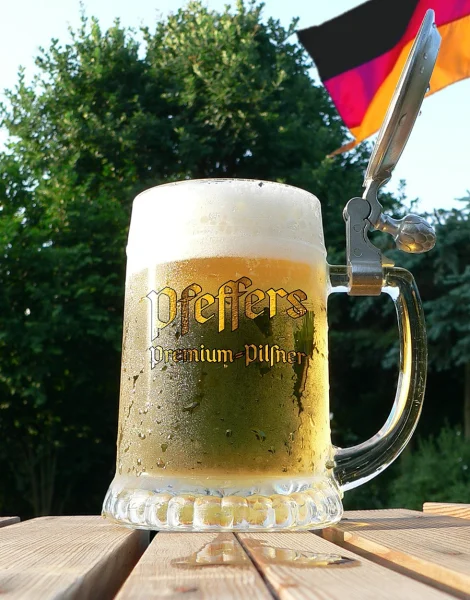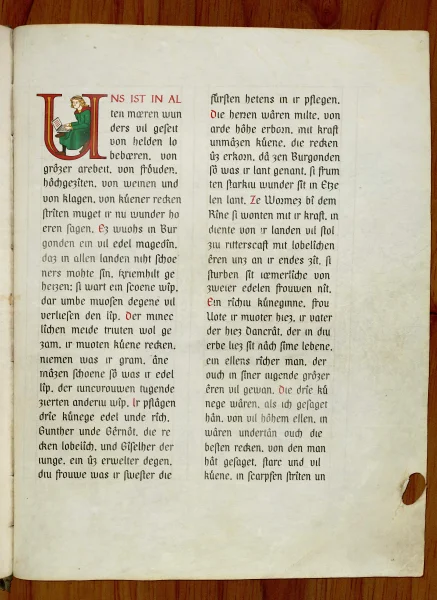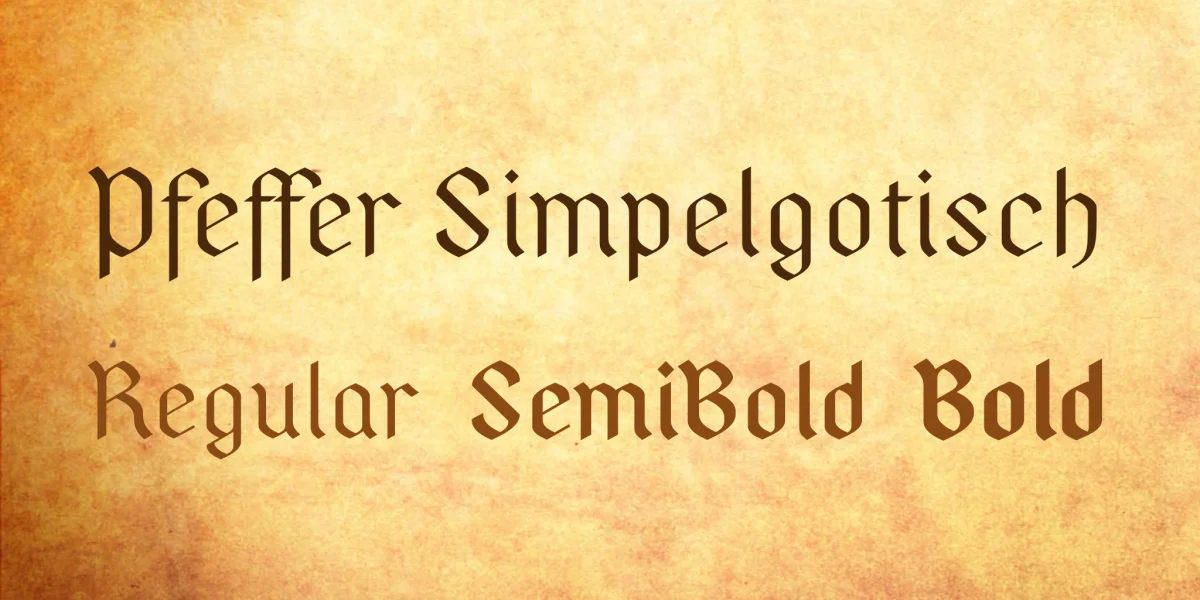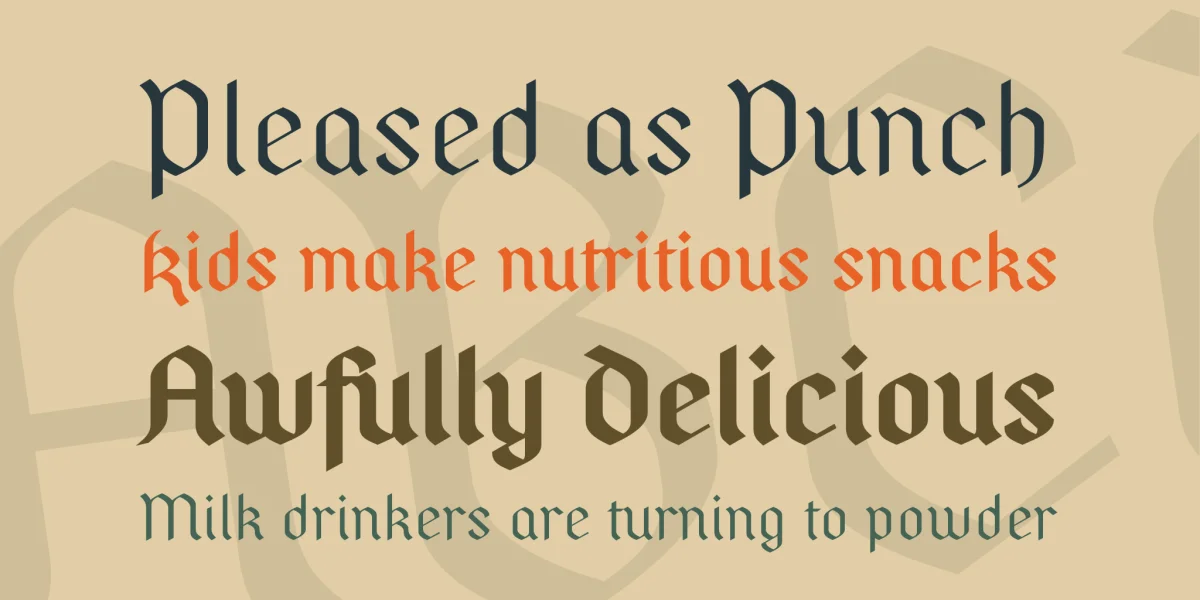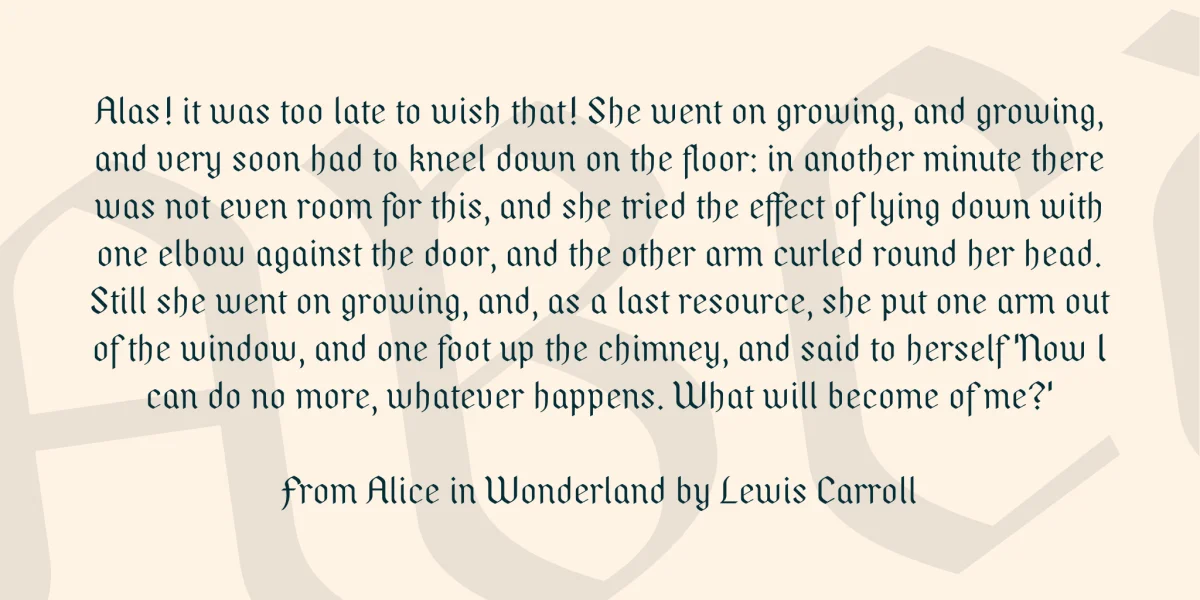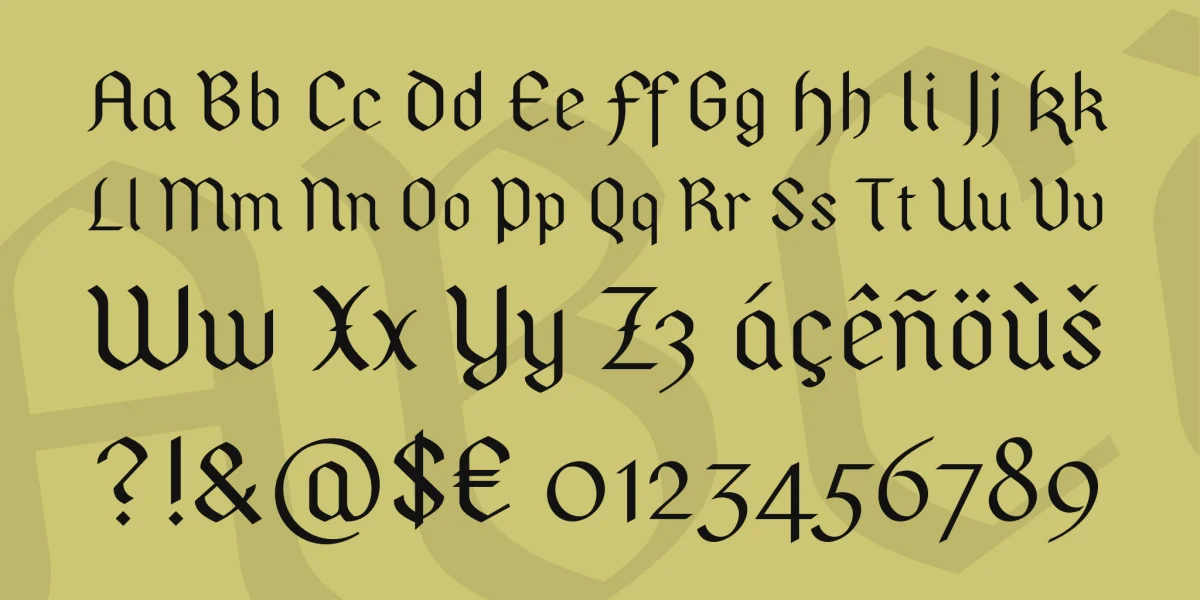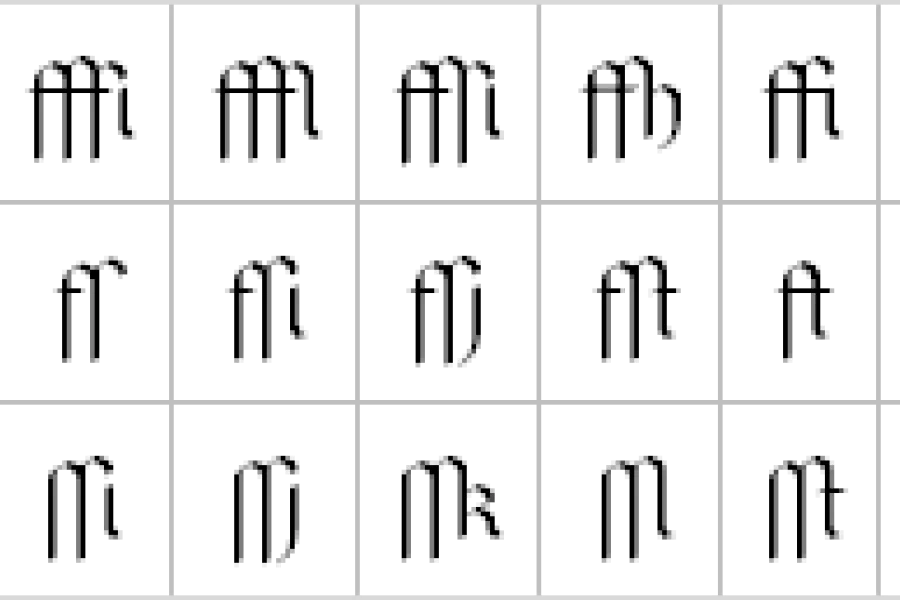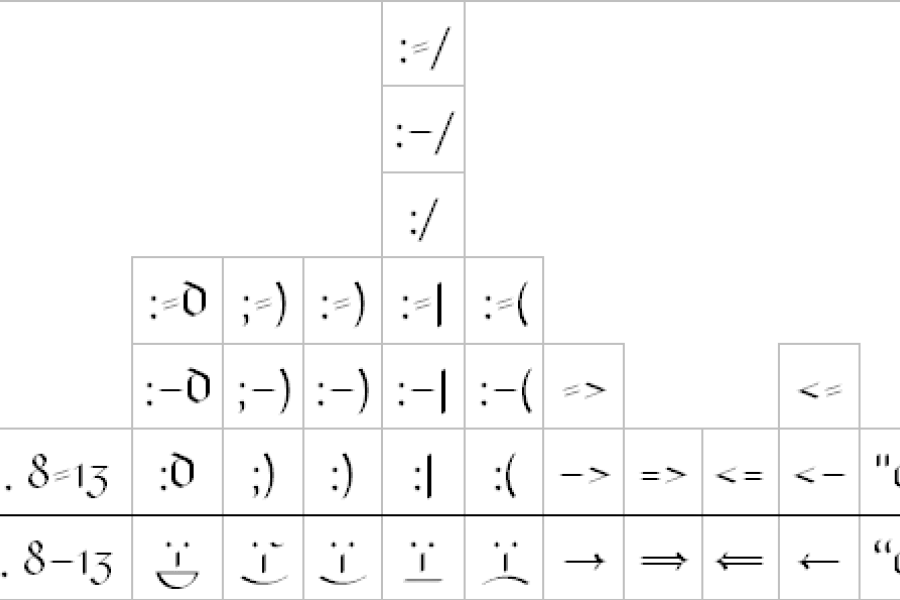
[smallcaps]Pfeffer Simpelgotisch[/smallcaps] is a particularly simple variant of the textura—that blackletter scripture which, starting from the 11th century with the advent of the Gothic style, had evolved from the Carolingian minuscule via the Gothic minuscule. The prevalent typeface of an age roughly reflects the era’s architecture: The Carolingian minuscule’s roundings correlate to the Romanesque round arches, while the textura’s letters are as peaked and as upright as Gothic architecture. Sans-serif on the contrary breathes the spirit of our concrete age, and antiqua is apparently to stand for anything in between, from Renaissance to Classicism. Following this finding, the pointed arch is the essential stylistic feature of Pfeffer Simpelgotisch, which for the rest is quite unornamental.
Blackletter typefaces know two forms of “s”— the round one (“s”) and the long one (“ſ ”)—the use of which abides by certain rules. Moreover, they use ligatures, including some mandatory ones. Pfeffer Simpelgotisch’s very special feature now is its having ſ and s as well as the ligatures automatically set, provided that the employed software support OpenType features. This, as well as its high legibility in small type sizes, renders Pfeffer Simpelgotisch even suitable for use as a system font in browser or operating system—at least on fast computers *.
Character Set and Typefaces
Pfeffer Simpelgotisch contains more than 500 glyphs the whole of which can’t be displayed here. These include many accented glyphs and other special characters. As far as the coverage reaches, the character mapping follows the recommendations of the Medieval Unicode Font Initiative. Particularly noteworthy are the numerous ligatures that are all set automatically.
Up to now Pfeffer Simpelgotisch is available in three typefaces: regular, semi-bold and bold. As Microsoft Word doesn’t recognise semi-bold typefaces so far, I also included the semi-bold one as a separate file in which it is declared as a separate font family.
OpenType Features
Pfeffer Simpelgotisch makes extensive use of OpenType features. The features “clig” and “liga” ought to be activated by default in order to have ſ and s as well as the ligatures automatically set. In detail:
I’ve used the feature “clig” (contextual ligatures) to store the rules for the correct setting of ſ and s. Ten European languages are supported. The language properties assigned to a text (e. g. in a Word or html document) determine which body of rules be applied. According to German rules, s is set at each syllable’s end, subject to some exceptions. In any other case ſ is set. While this rule sounds simple, it’s quite complicated to teach a machine, what a syllable is! Very few abstract and universal policies were to be found, and so the German rule body couldn’t be prevented from dwindling into casuistry. Hence, about 90 % of the “clig” feature are occupied by the German rules, while the other languages get along with the remaining 10 %. I’ve to thank [smallcaps]Hans-Georg Soldat †[/smallcaps], the author of the Ligaturix, who kindly had given to me a long list of tricky words. Alas, he has just died a few months too early to hear from my finished font.
The Dutch rules are experimental. Setting ſ and s in Dutch is as complicated as it is in German, and I lack the linguistic knowledge necessary to implement this. Thus I’ve employed the most abstract and basic German rules for Dutch as well, hoping they’ll be of some use there, too. Implementing the rules for English, Danish, Norwegian, Swedish, French, Spanish, Italian and Latin was much easier, as they only follow graphical aspects. The setting of ſ and s strictly depends on certain letter combinations, regardless of their meaning. Decisive for me was the description on Wikipedia.
One function of the feature “liga” (standard ligatures) is setting the ligatures. However, these serve merely aesthetic purposes by optically easing consonant clusters or by depicting glyph pairs more relaxed which otherwise would be quite crowded. Divergingly from the rules of Fraktur typography, these ligatures don’t halt at syllable boundaries. On the other hand, they aren’t merely joint glyph pairs whose syllable coupling use would distort the meaning. Pfeffer Simpelgotisch comprises the following ligatures.
Furthermore, the feature “liga” automatically corrects the frequently made mistake of setting a hyphen instead of an en dash or a minus sign (“www robert minus pfeffer dot net”, for example, is wrong!). This is important, because a blackletter hyphen is not a horizontal single, but an oblique double stroke, and thus clearly differs from an en dash or a minus sign. For the same reason, Pfeffer Simpelgotisch also recognises the most common emoticons and transforms them graphically. Moreover, certain combinations of “=” or “-” with “<” and “>” are displayed as arrows, and simple quotation marks (" ") are replaced by typographic ones (“ ”). Finally, the most common fractions, if typed with a backslash, are recognised and depicted with a proper fraction bar. Hence, the following substitutions take place.
Finally, Pfeffer Simpelgotisch tries to identify Roman numerals as well as possible and to replace them by appropriate glyps, because blackletter majuscules are little suited for this. The feature “hist” (historical forms) causes a typeface appearing somewhat older. “Etc.” is depicted by a special character, r following round letters is replaced by its round version, and the diaeresis above the umlauts is supplanted by a small e. In English texts, ſ is also set before b and k, as it was standard in the 17th century. As Microsoft Word doesn’t know the feature “hist” I’ve made it available as stylistic set “ss05”, too.